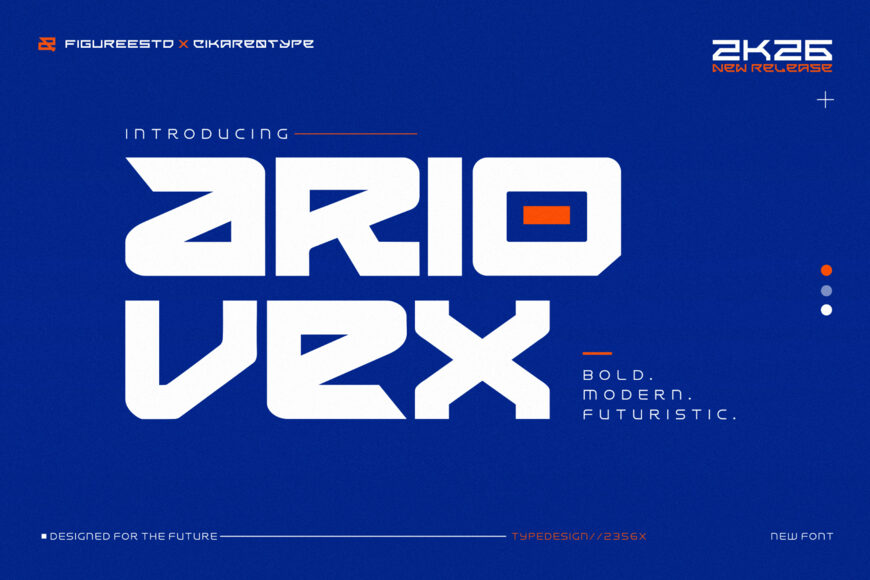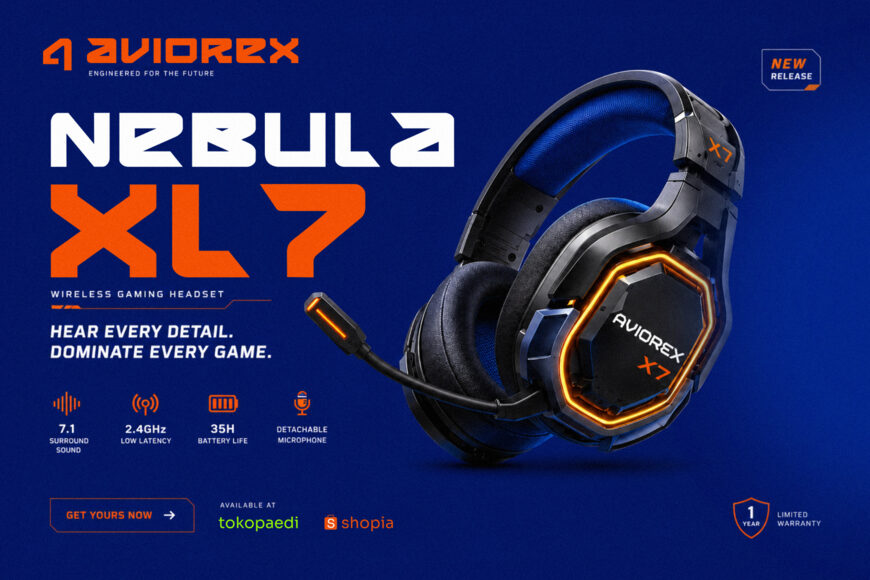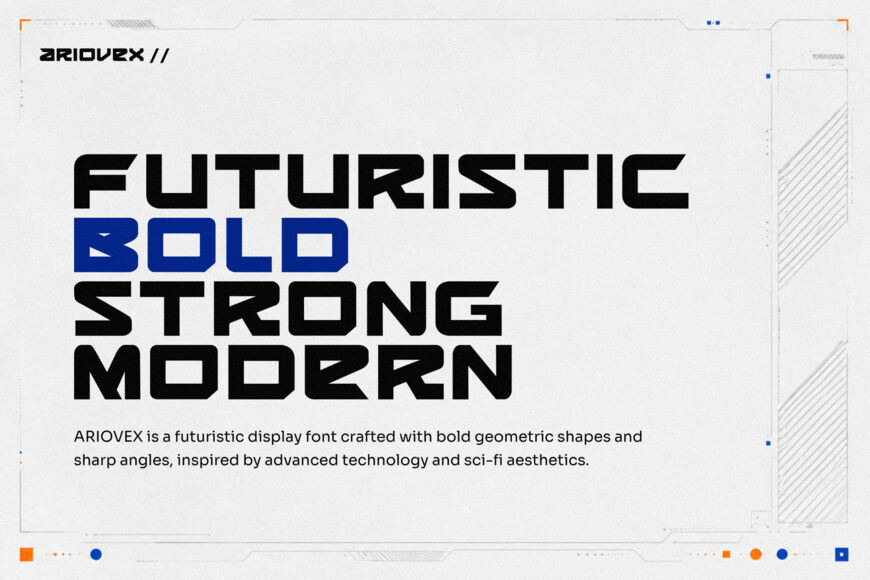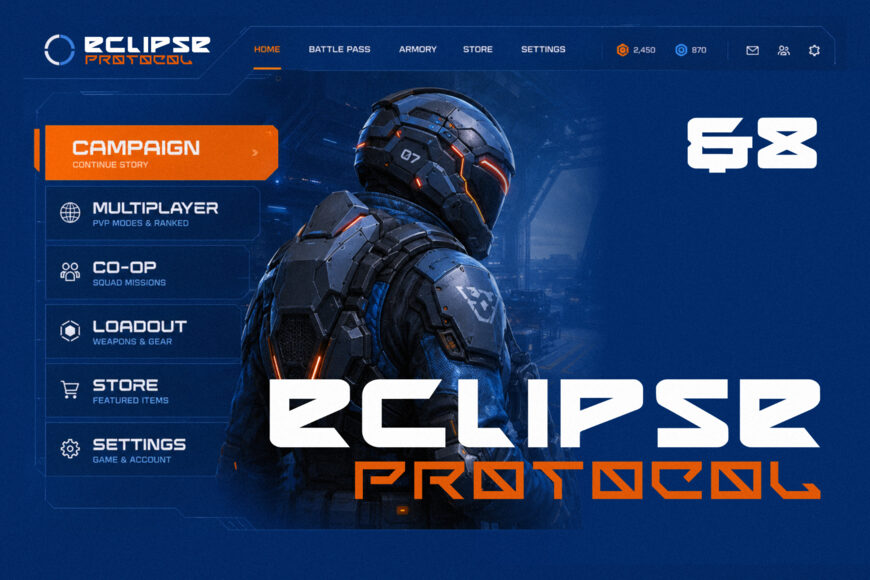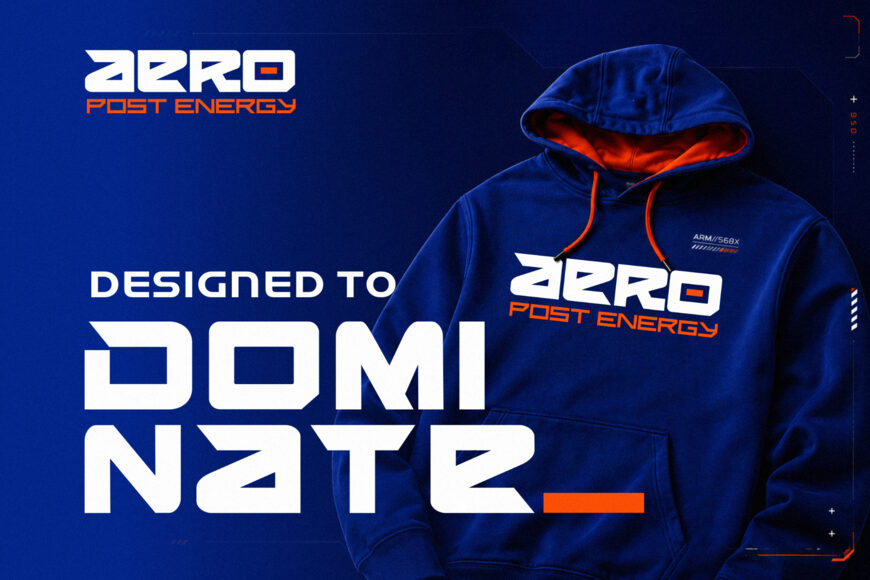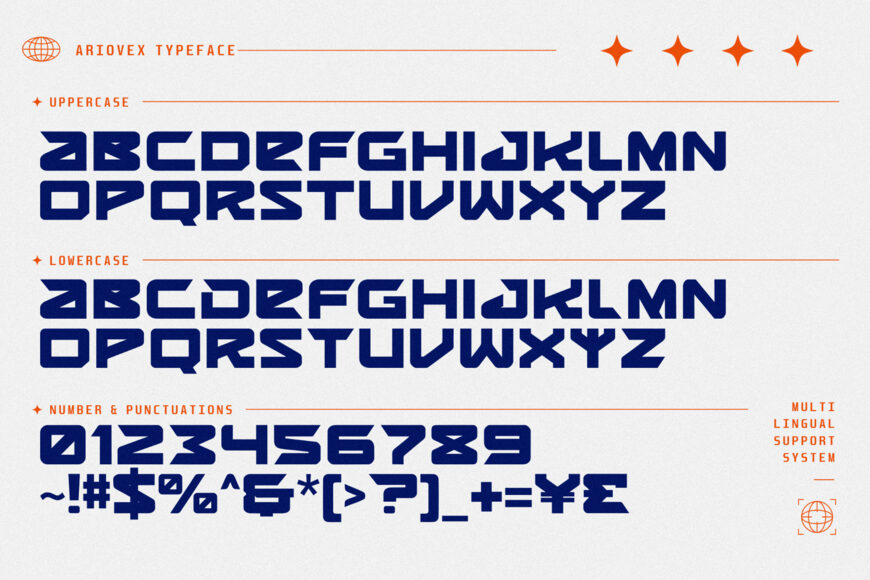
Ariovex is a futuristic display typeface for designers seeking a bold, contemporary, forward-looking style. Its uppercase characters suit striking titles, concise logos, campaign headlines, and brand identities centered on innovation. The package includes Regular and Italic styles, offering flexibility and contrast.
Use Regular for a firm, authoritative look, or Italic to add movement, energy, and emphasis. Ideal for technology branding, sci-fi posters, gaming visuals, and digital campaigns, Ariovex delivers a distinct identity while remaining practical for both print and web applications.